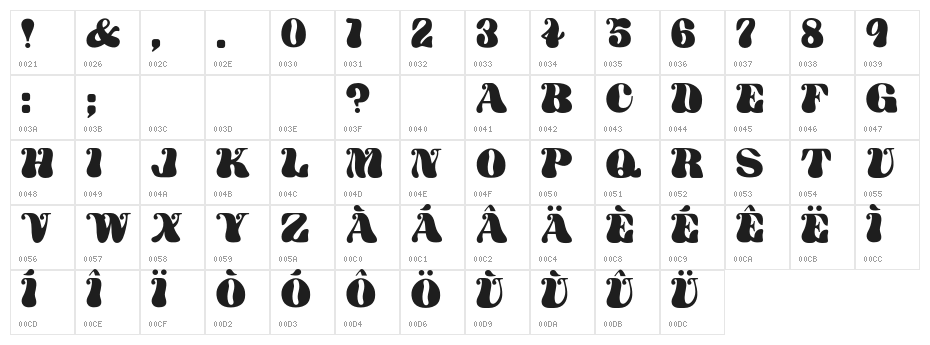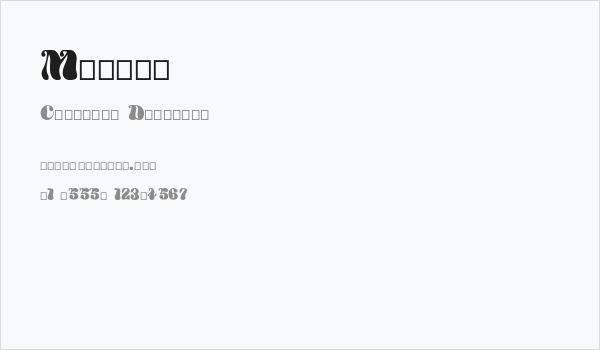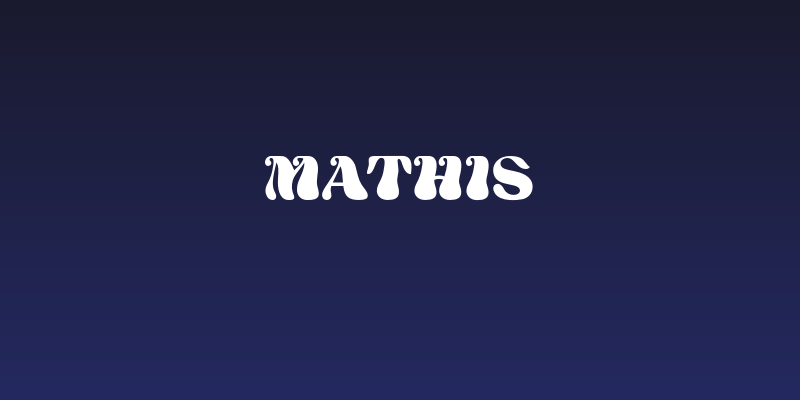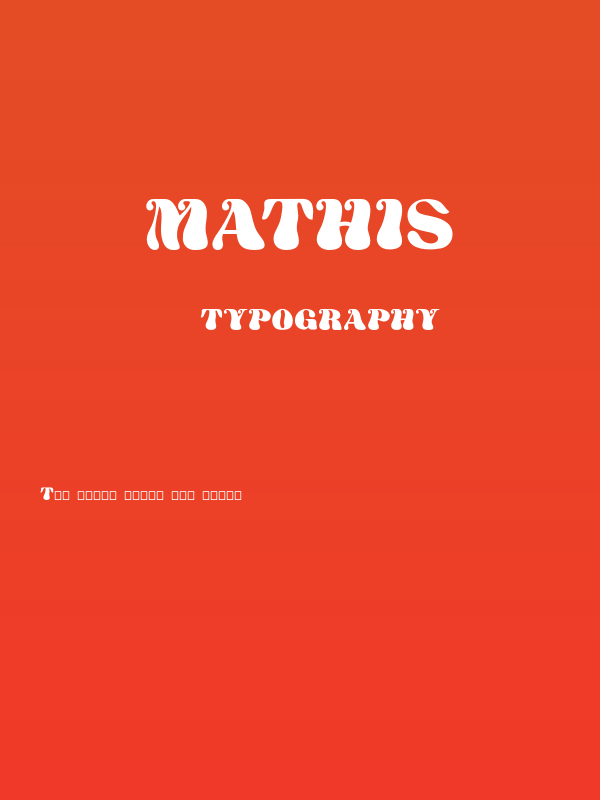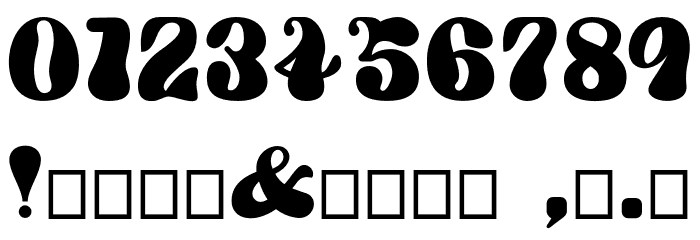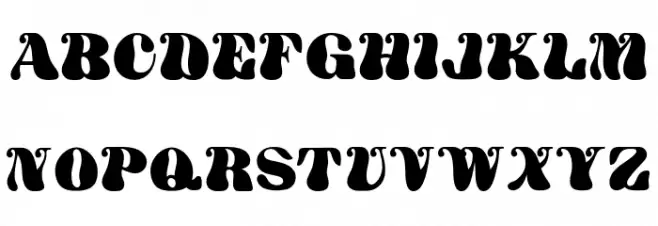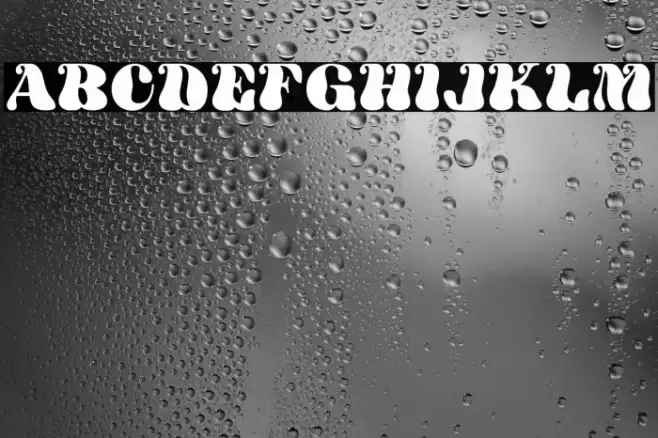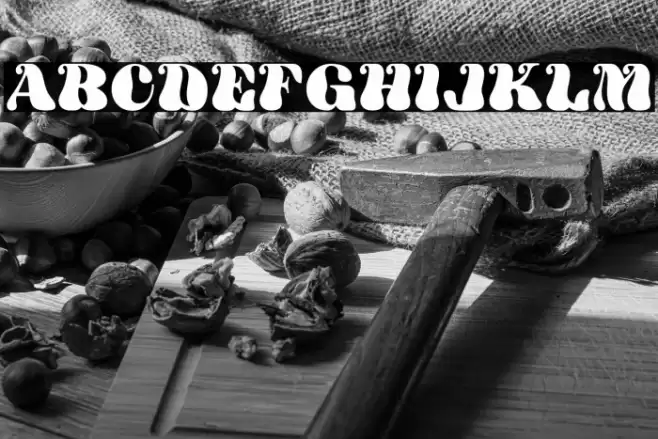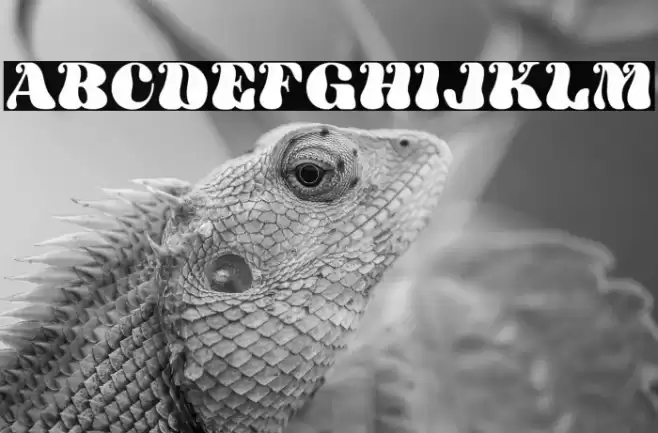
Mathis Font
Mathis Description
This font features a bold and playful design with thick, rounded strokes that give it a whimsical and eye-catching appearance. The uppercase letters are particularly striking, with exaggerated curves and a sense of movement that adds a dynamic feel. The numbers and special characters maintain this bold style, ensuring consistency across all glyphs. This font's unique style makes it ideal for projects that require a fun and engaging visual impact.
| Overall Style | Playful, Whimsical |
| Proposed Projects | Ideal for children's books, playful branding, posters, and event invitations. |